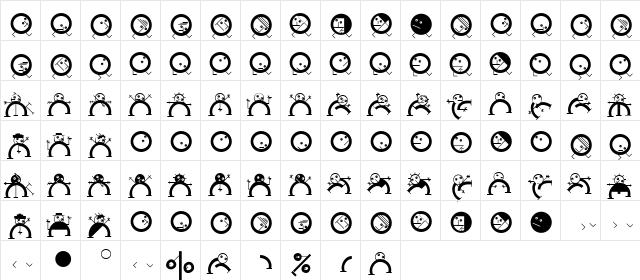
Maenneken Regular
Design Context for Maenneken Typeface
Maenneken is a composed and adaptable typeface that performs quietly and consistently across a wide range of design contexts.